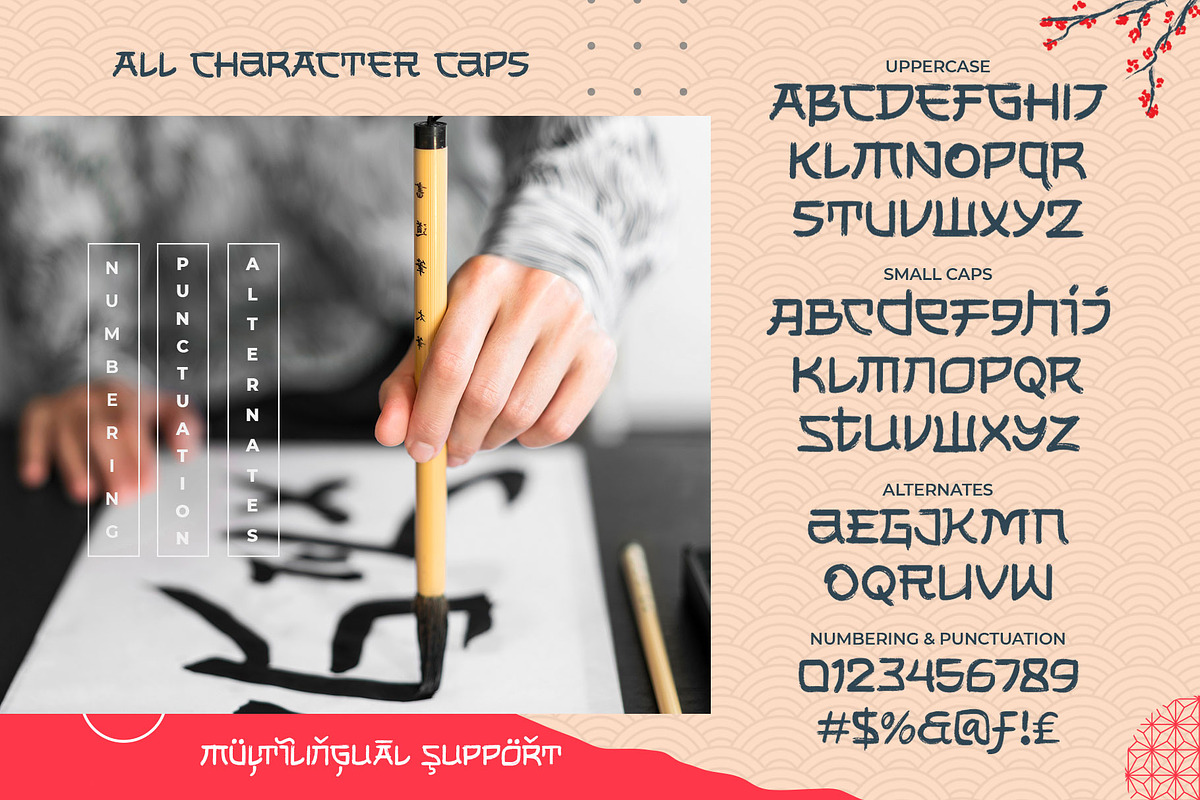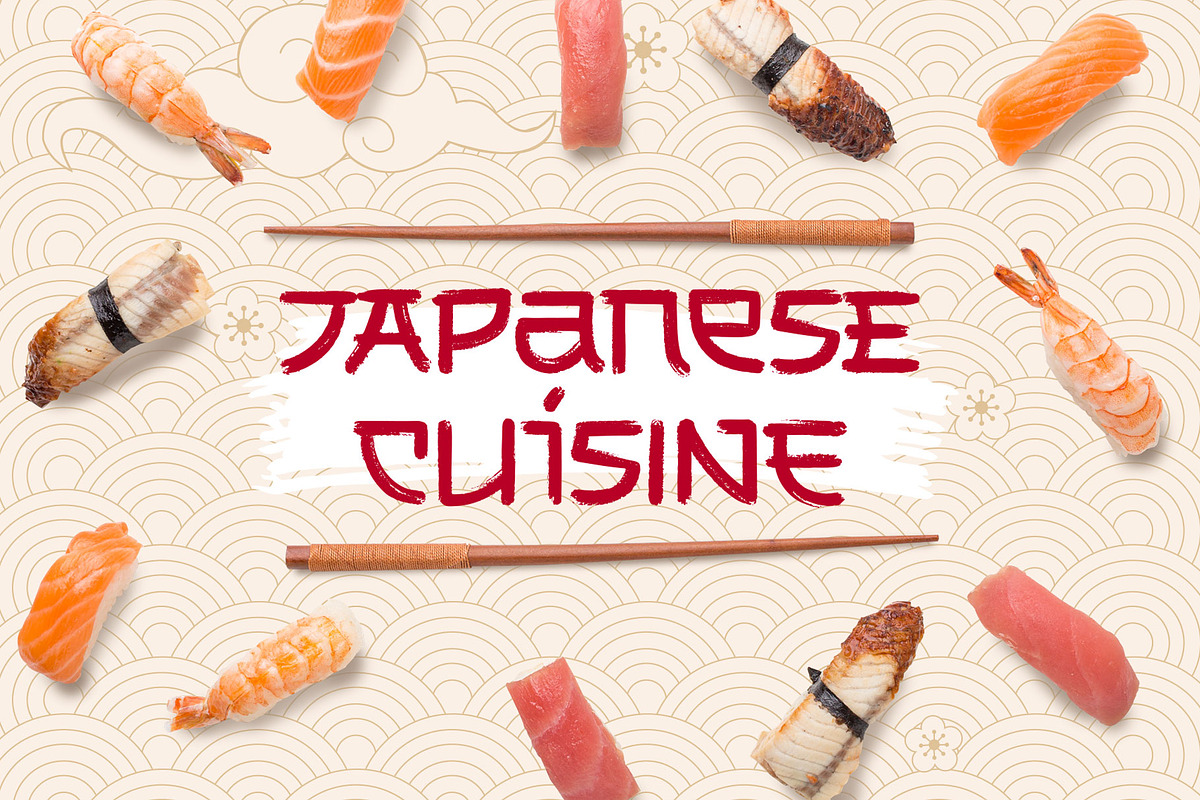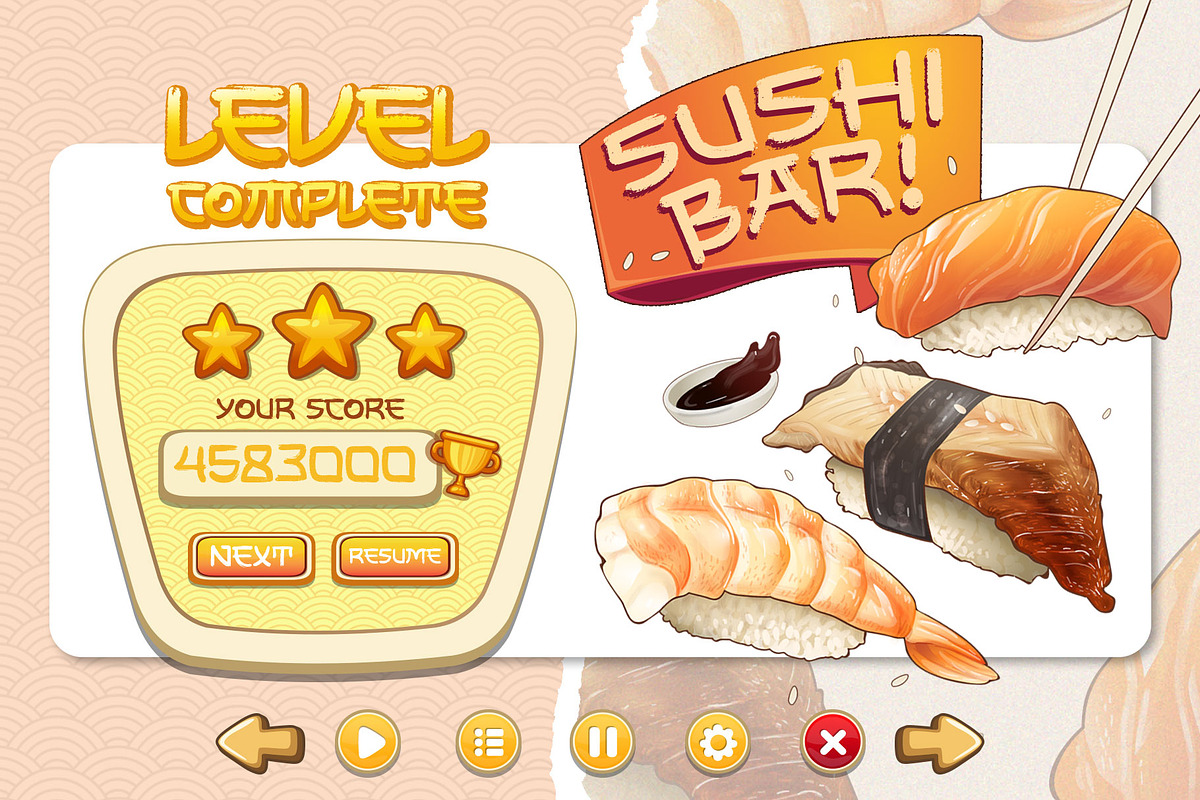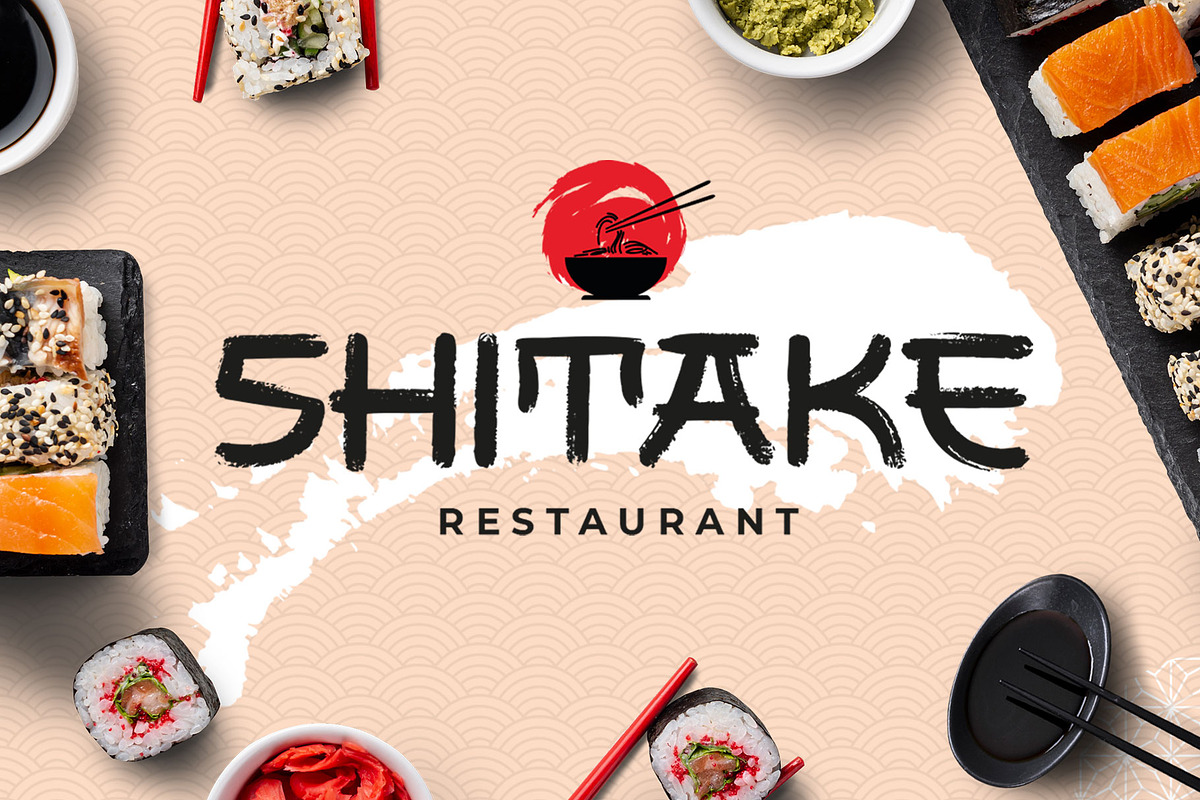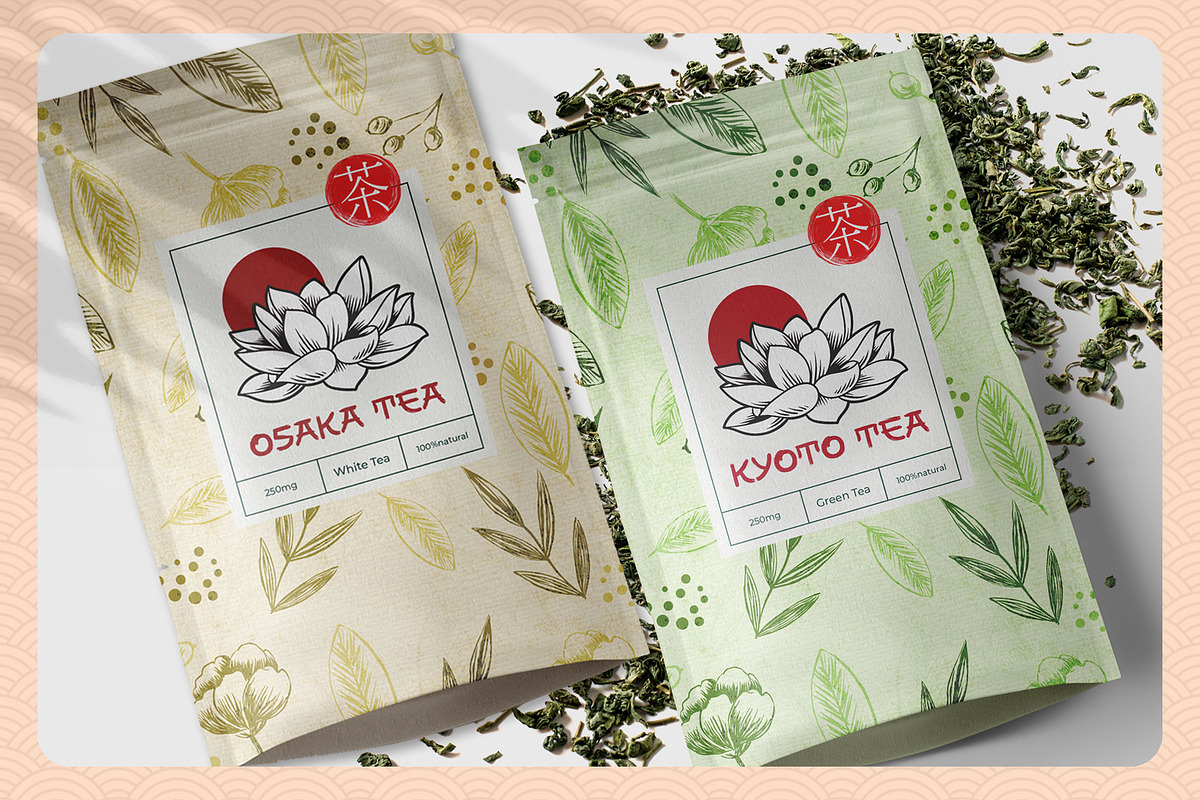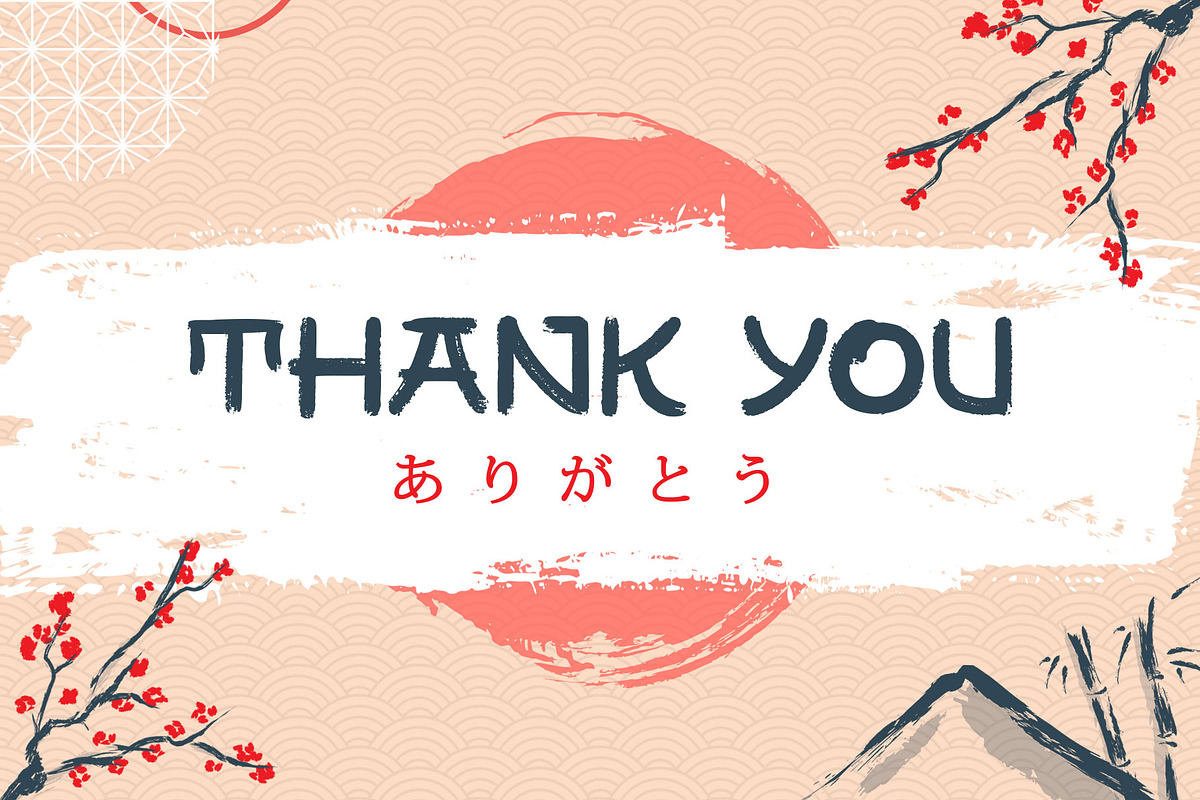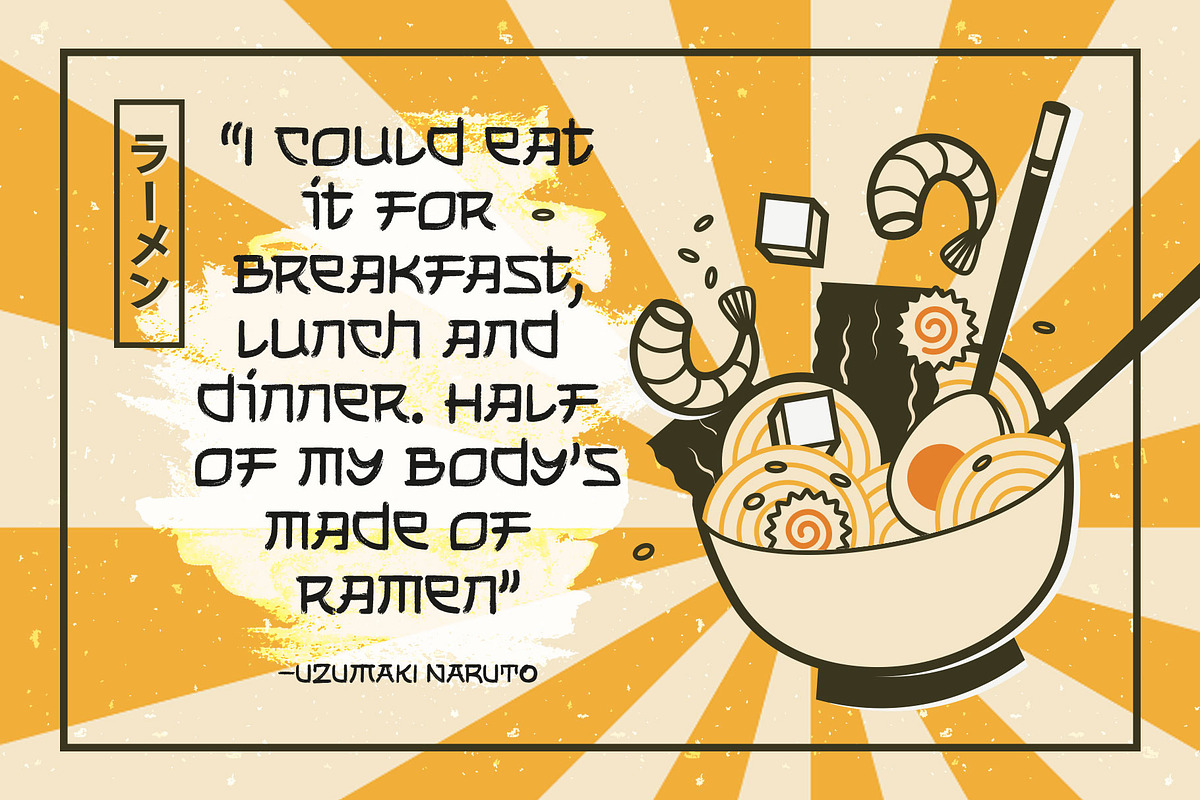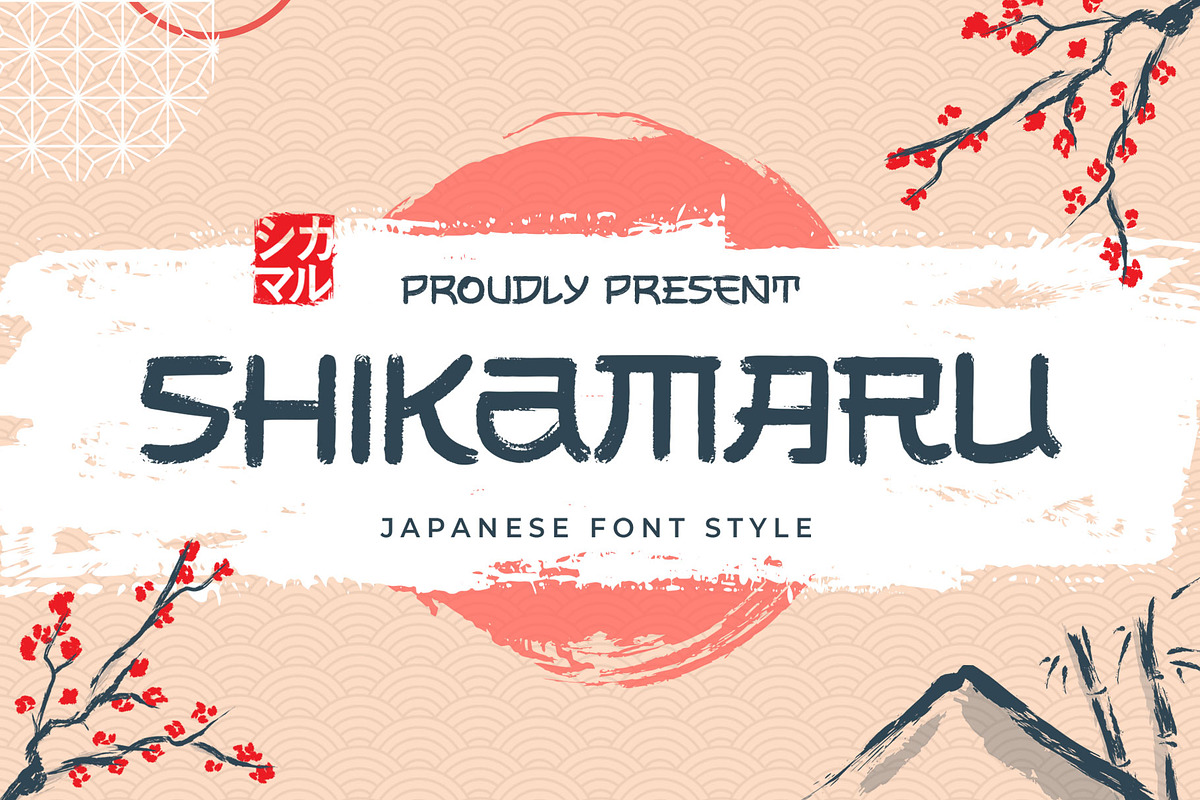
Shikamaru - Japanese Style
Shikamaru is a Japanese-style typeface. Designed with minimalist rough stroke and Kanji letters inspired. This font is an all-caps font that has different shapes between the uppercase and lowercase. Simple and more Japanese feel!
Shikamaru is perfect for display, especially for Japanese food, merchandise, logo, poster, short quote, movie, games, apparel. Equipped with stylistic alternates which came (and explored) from the Mandarin letters. PUA Encoded with multilingual support!